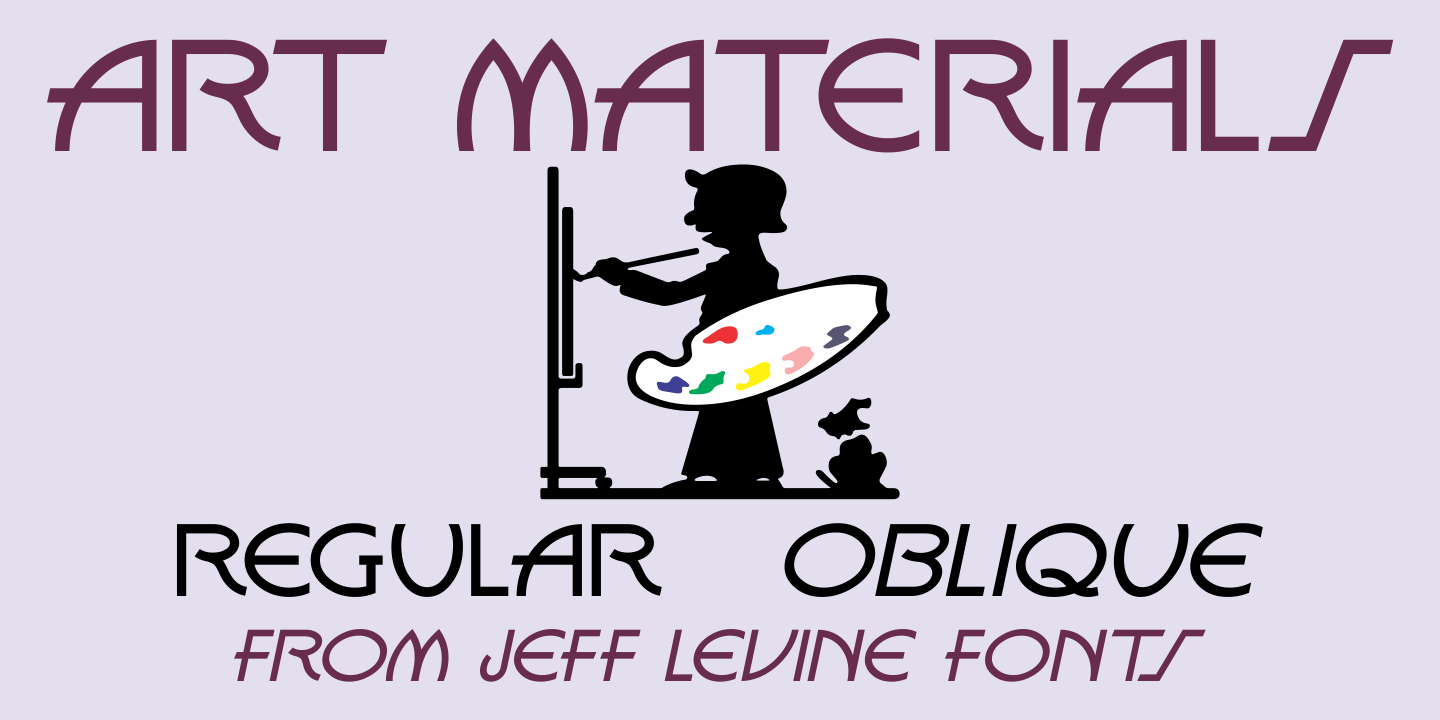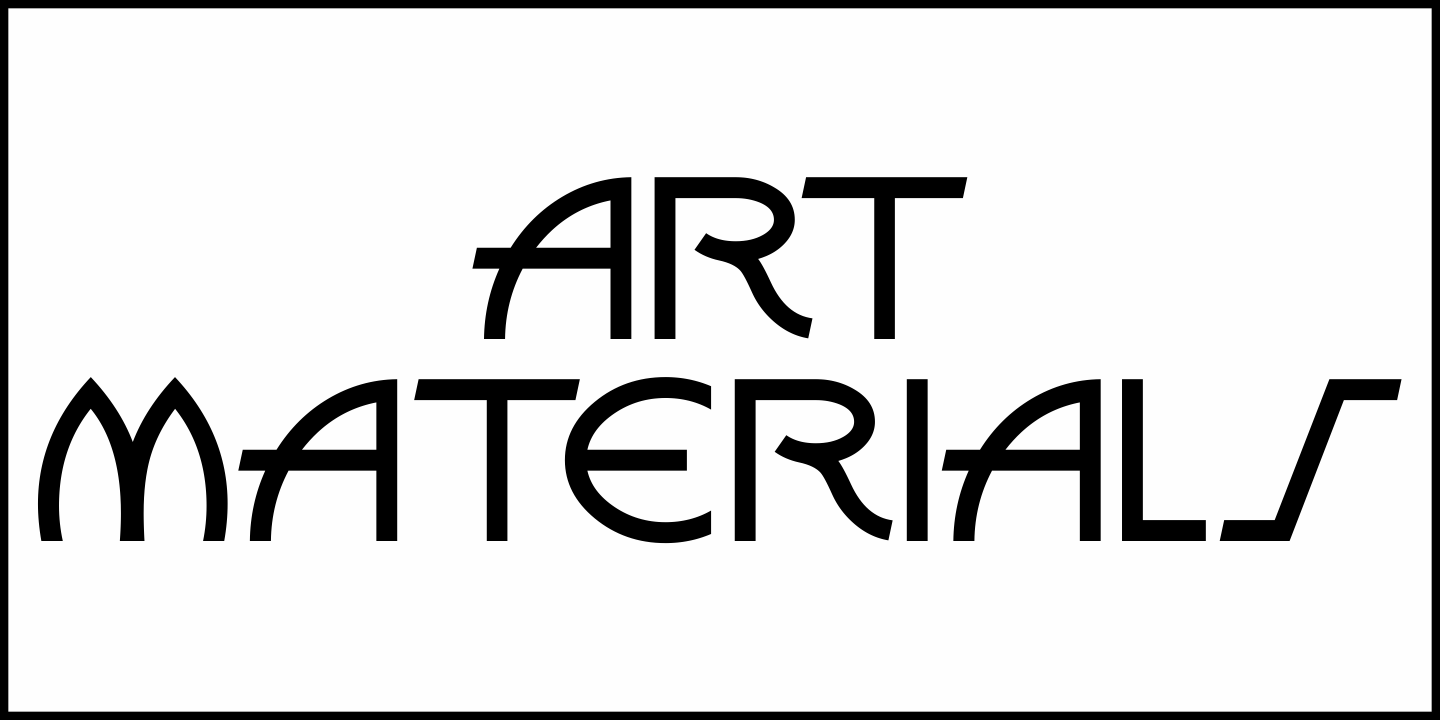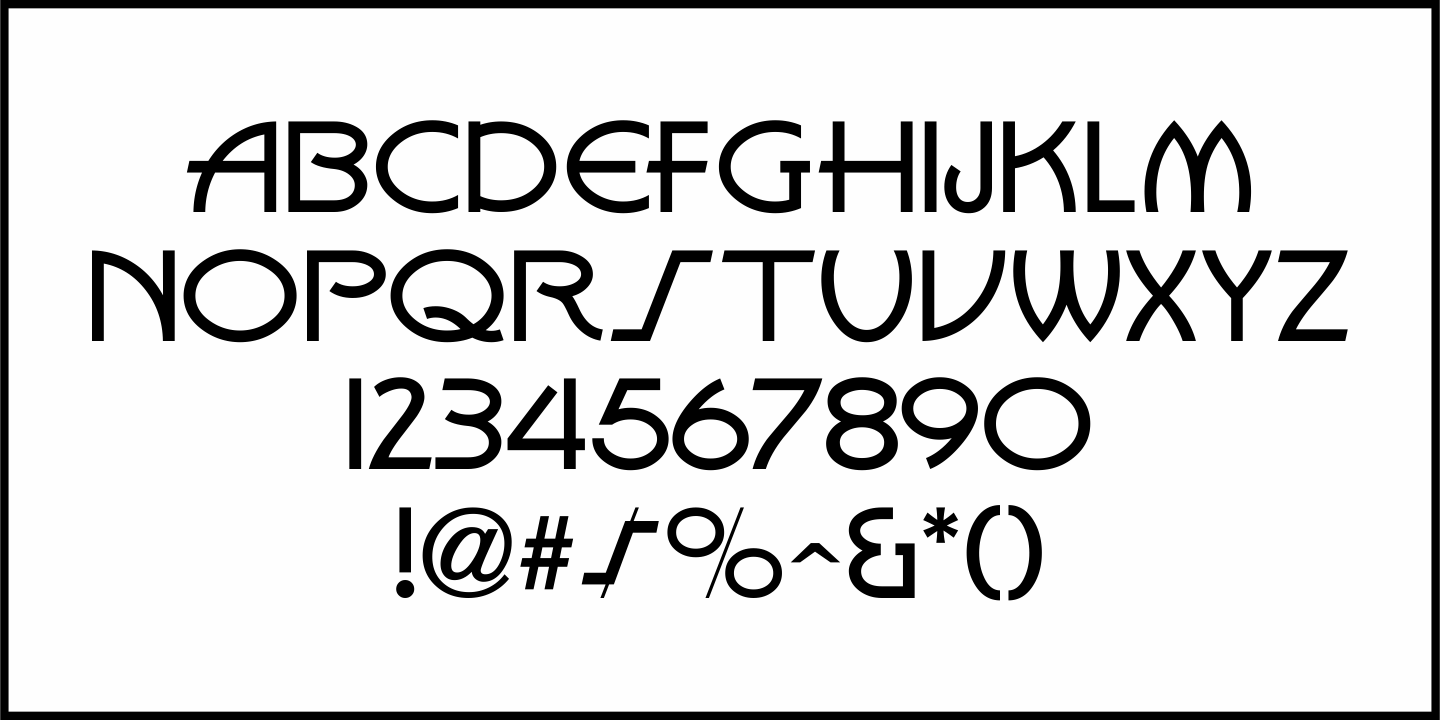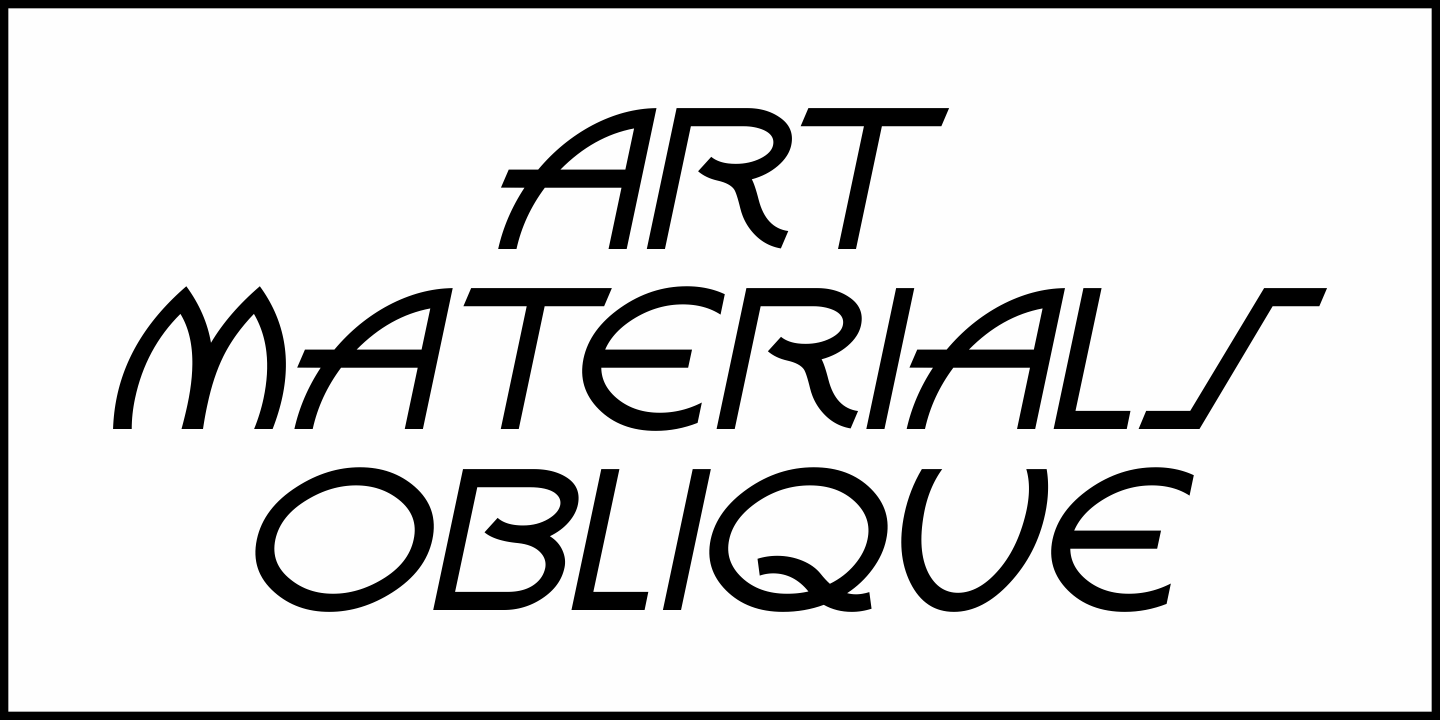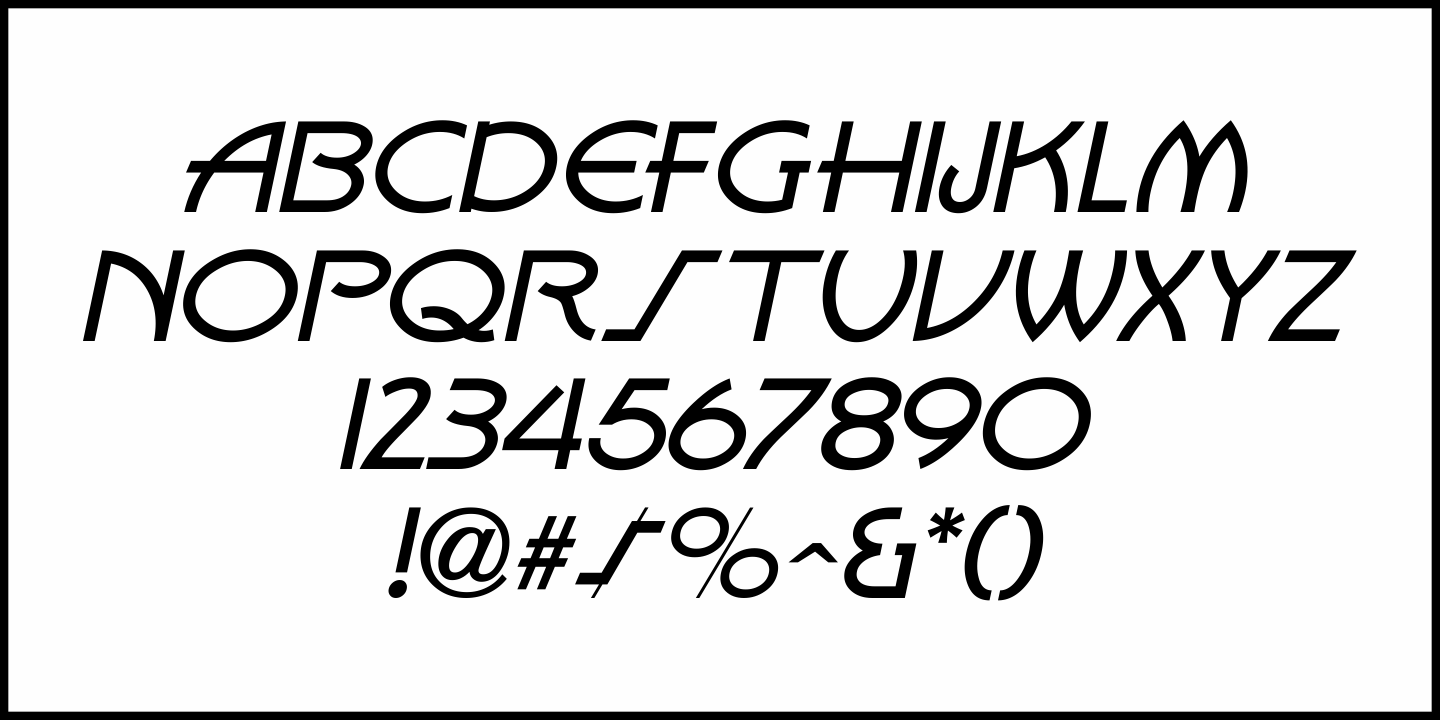
Art Materials
The cover of the 1930s-era “Catalog of Artists’ Materials” from Ernst H. Friedrichs, Inc. (New York) has the words “Artists’ Materials” hand lettered in a stylized Art Deco sans serif type style.
This unique design is now the digital font Art Materials JNL, which is available in both regular and oblique versions.